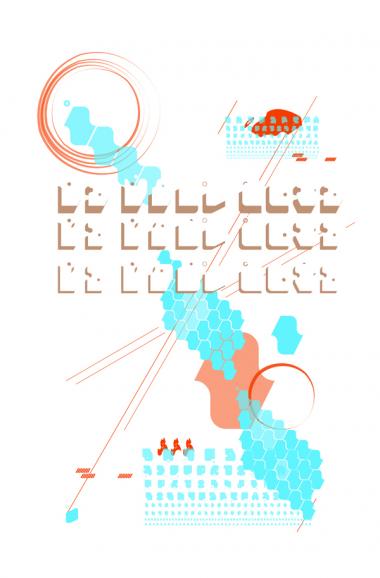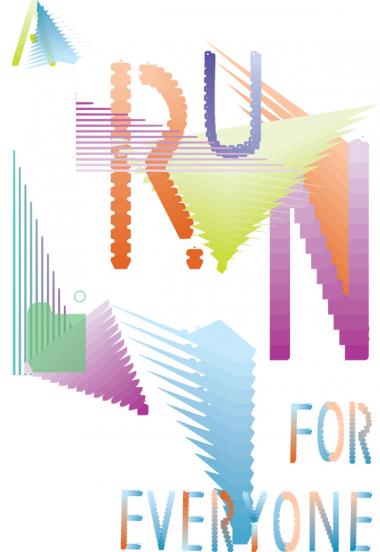
• A typeface based on mapped runs, viewed aerially. The letters correspond to the number of miles on the run: A=1, B=2, ... Z=26. The small circles indicate elevation: circle above means more elevation gained than lost, circle below is vice versa.
Use as texture, abstract shapes, or as a wingdings font.
Or, load into illustrator and play around with warping the shapes. The possibilities are endless.